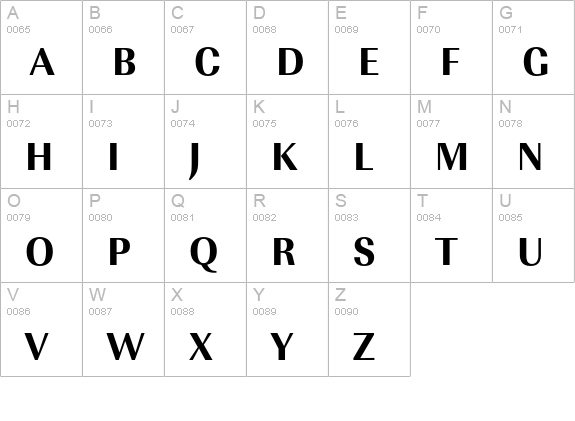
URWImperialTOTExtBolNar Font Details
URWImperialTOTExtBolNar is a bold and striking font that commands attention with its strong and powerful presence. With its clean lines and elegant curves, this font exudes confidence and sophistication, making it perfect for a variety of design projects. Whether you're creating a modern logo, eye-catching headlines, or stylish branding materials, URWImperialTOTExtBolNar is sure to make a statement. The best part is, URWImperialTOTExtBolNar is available for free download at FontsMarket.com. This means you can easily access this impressive font and incorporate it into your designs without any cost. Don't miss out on the opportunity to enhance your projects with the timeless appeal of URWImperialTOTExtBolNar – download it today and take your designs to the next level!